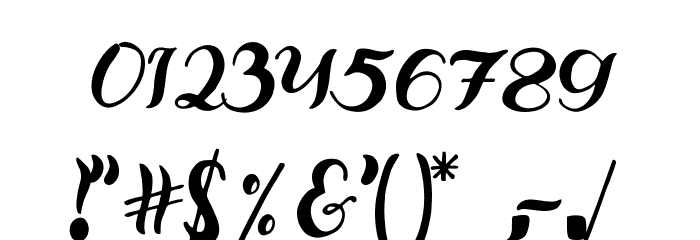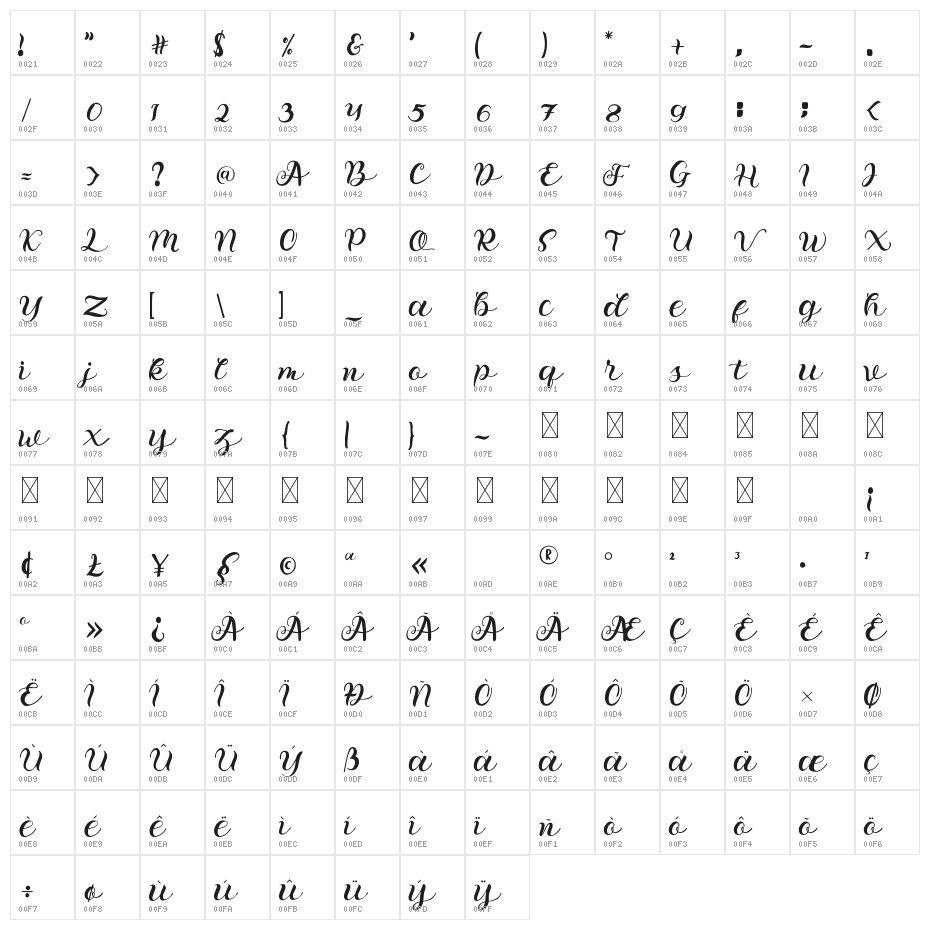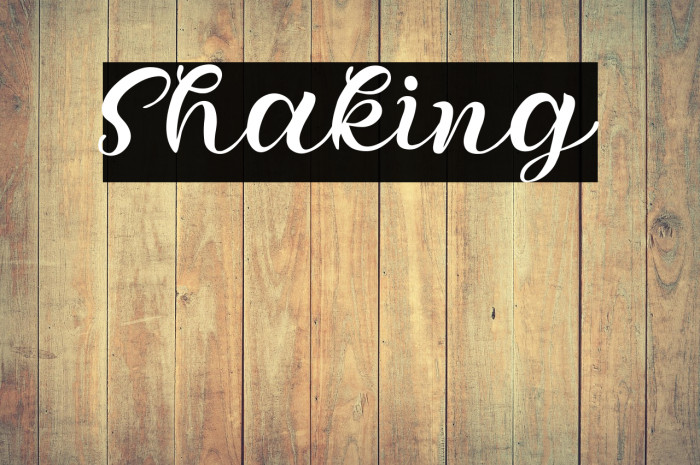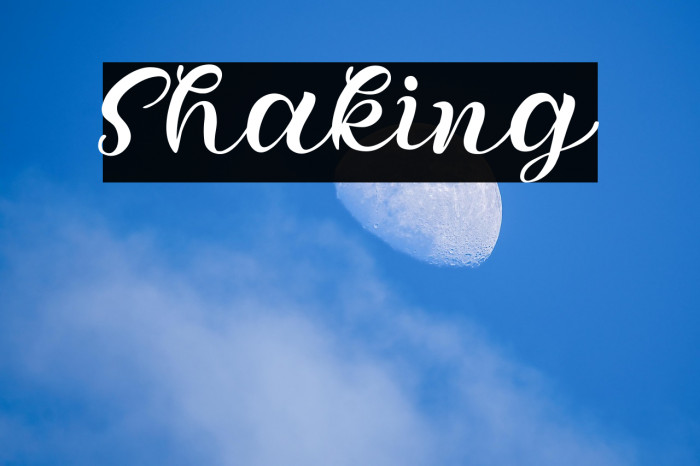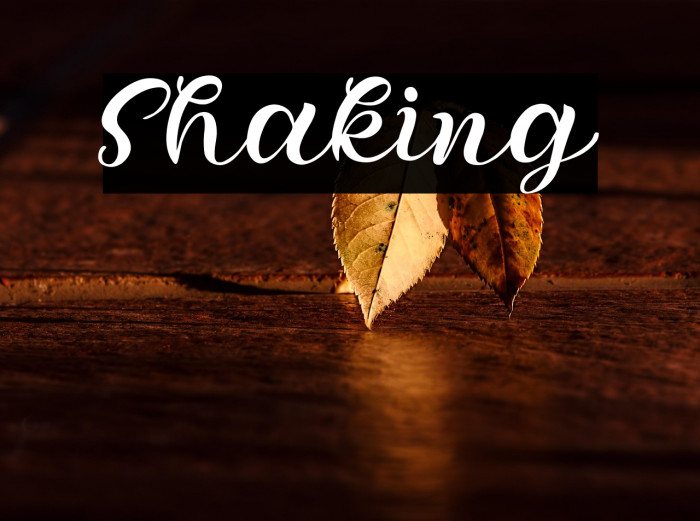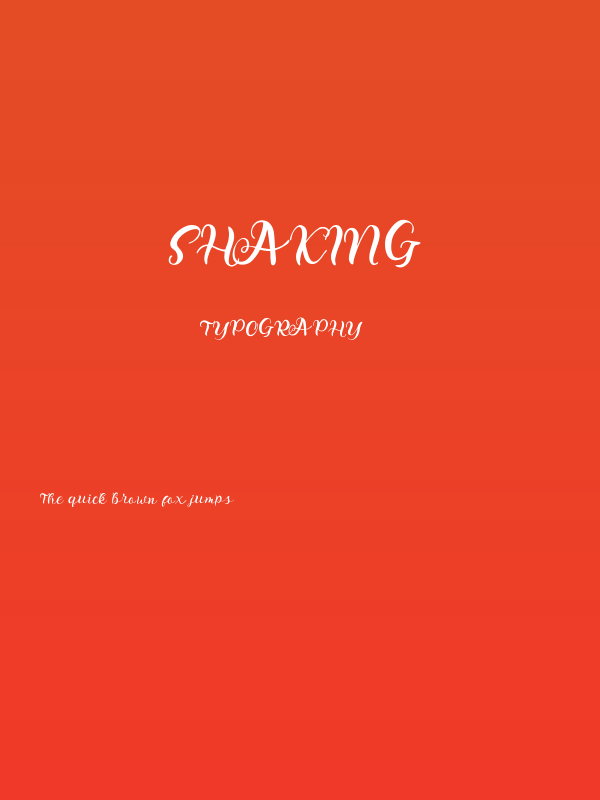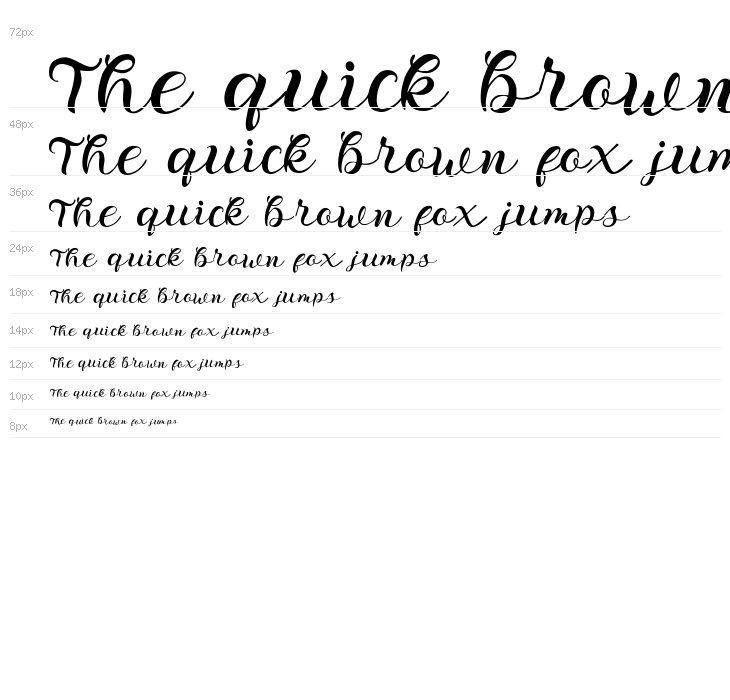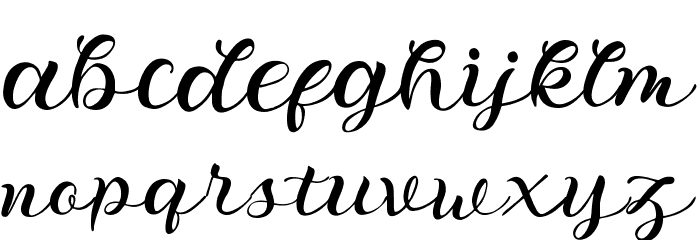
Shaking Font
Shaking Description
This font features an elegant, flowing script style with a modern twist. The characters are interconnected, creating a seamless and fluid appearance. The uppercase letters are ornate, with intricate loops and swirls that add a touch of sophistication. The lowercase letters maintain a consistent flow, enhancing readability while retaining a decorative flair. The numerals are stylish and match the overall aesthetic, making them suitable for various design applications. Special characters are thoughtfully designed, complementing the script's overall elegance. This font is perfect for projects that require a touch of class and creativity.